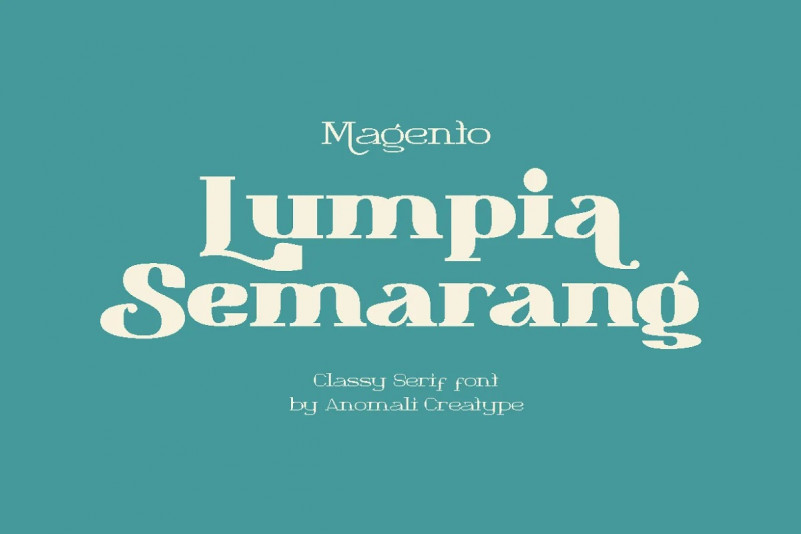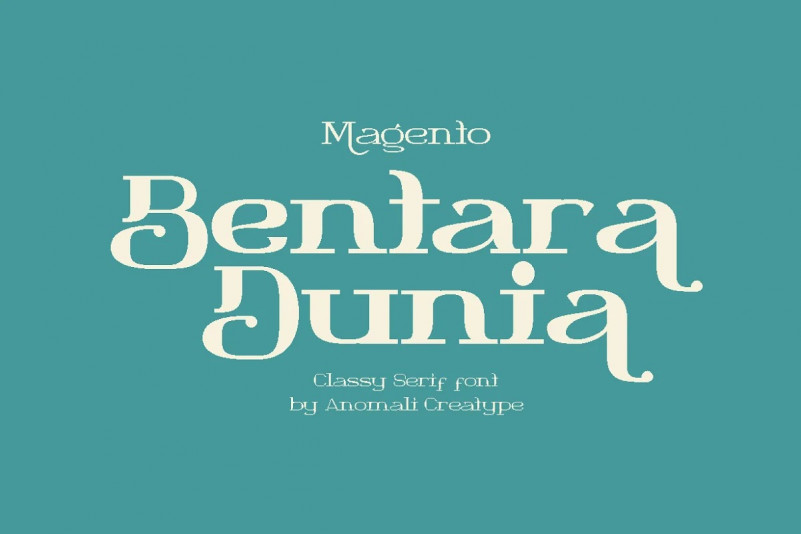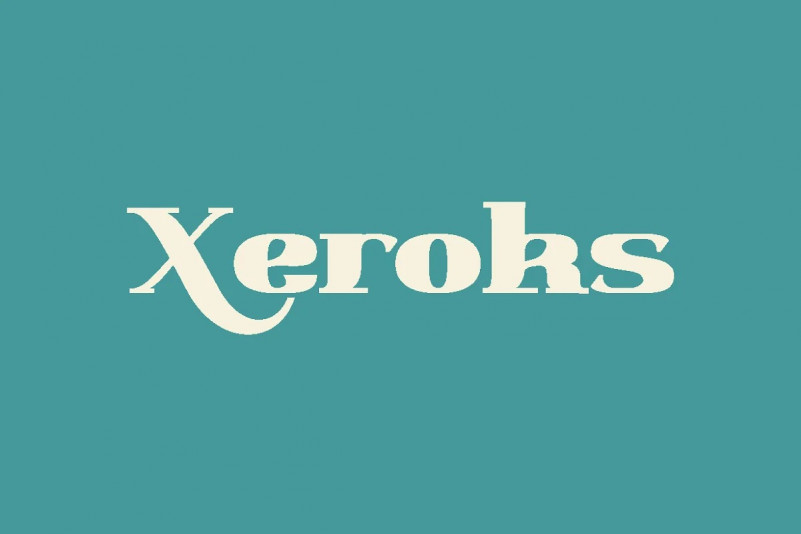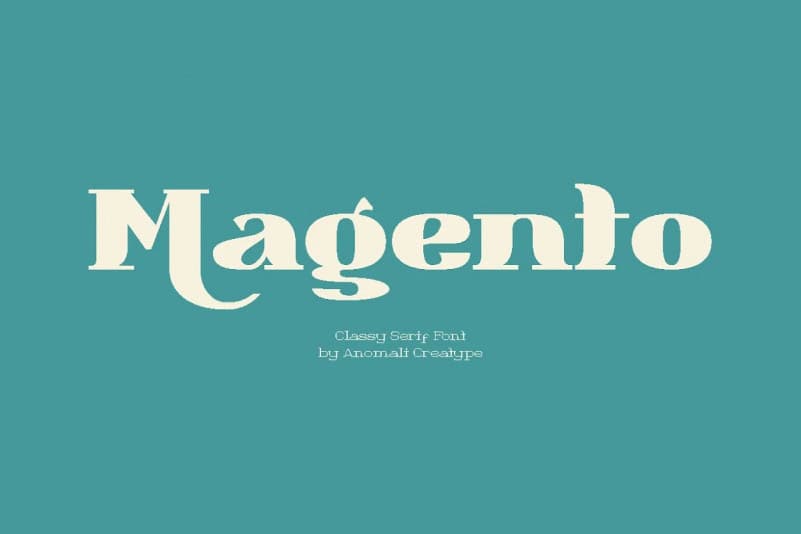
Magento Font
Magento Serif Font
This is a Serif font, which has a retro and modern with eight variants. It’s designed and shared by Anomali. Helps to create layout design in 60s or 70s design projects.
This MAGENTO Family has 9 weights from thin to black, and Italic version on it